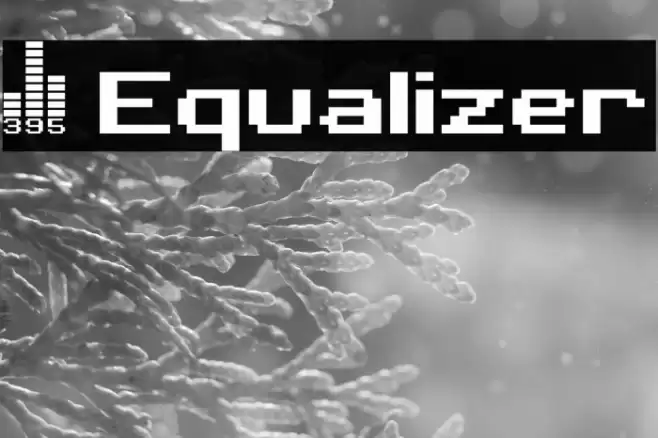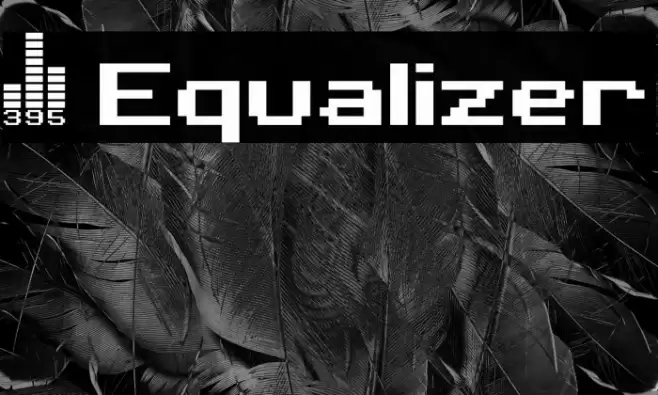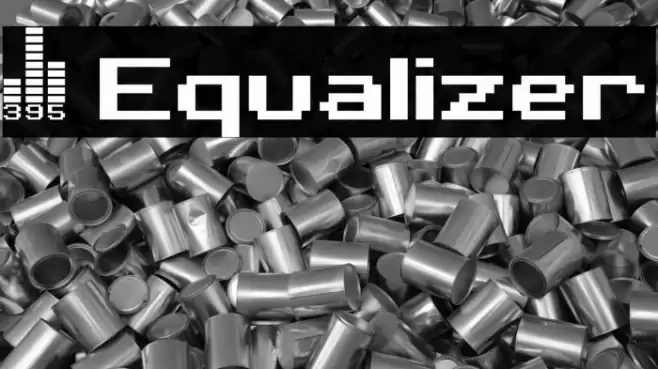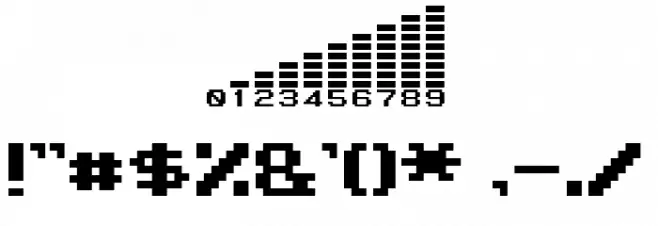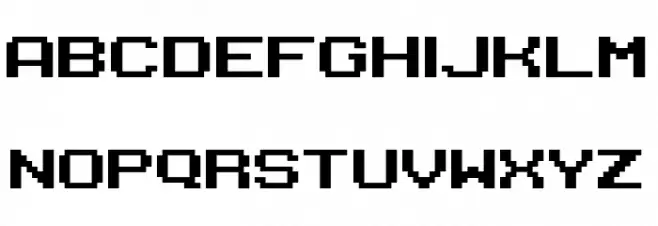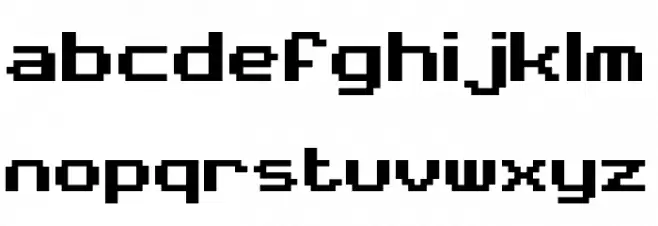
395 Equalizer Font
395 Equalizer Description
This font features a bold, pixelated design reminiscent of early digital displays and retro video games. Each character is constructed with a blocky, grid-like structure, giving it a distinctly digital and technological feel. The uppercase and lowercase letters maintain a consistent height, enhancing readability while preserving the unique aesthetic. Numbers and special characters are designed with the same pixelated style, ensuring uniformity across all glyphs. The font's geometric precision and uniformity make it ideal for projects that require a digital or retro theme.
A bold, pixelated font with a retro digital aesthetic from Uncategorized fonts.
- Proposed Projects: Ideal for video game design, digital art projects, retro-themed posters, and any creative work that requires a digital or vintage tech look.
- Overall Style: Retro, Digital
- Use Case: Logos, Headlines, Digital displays